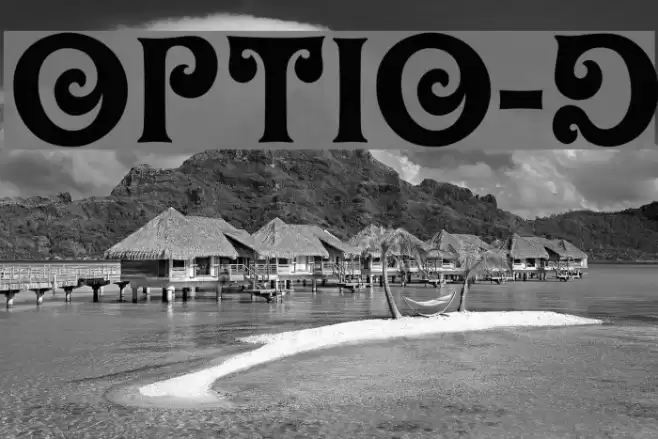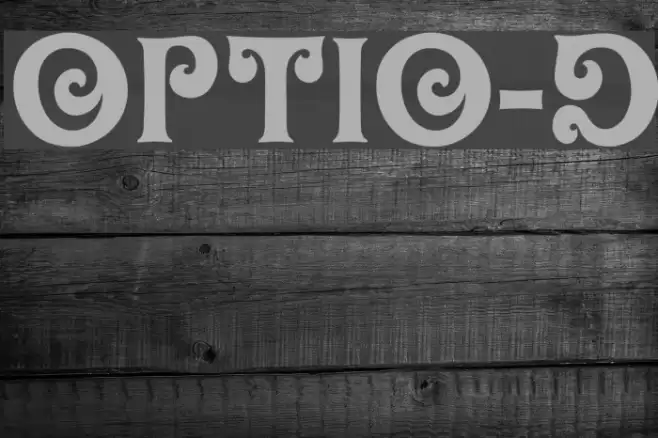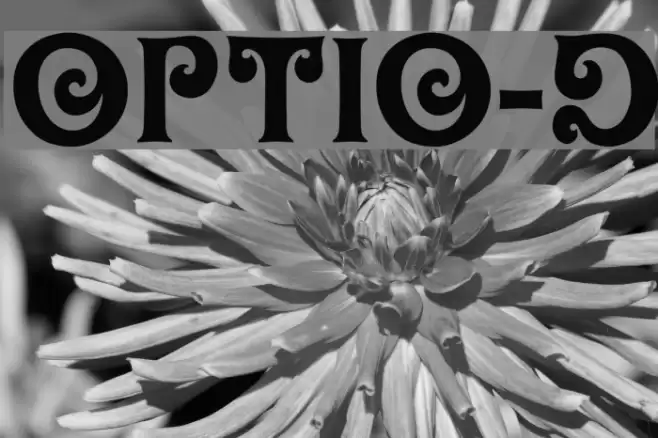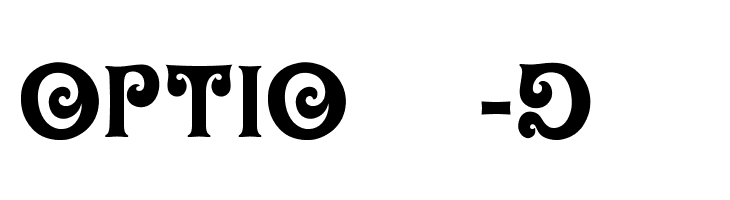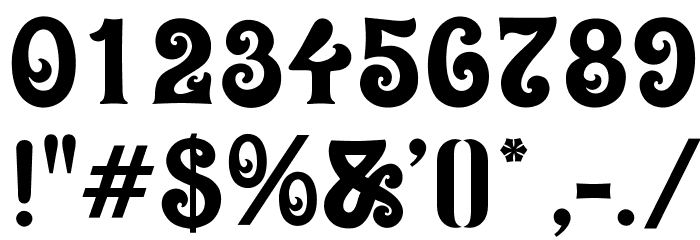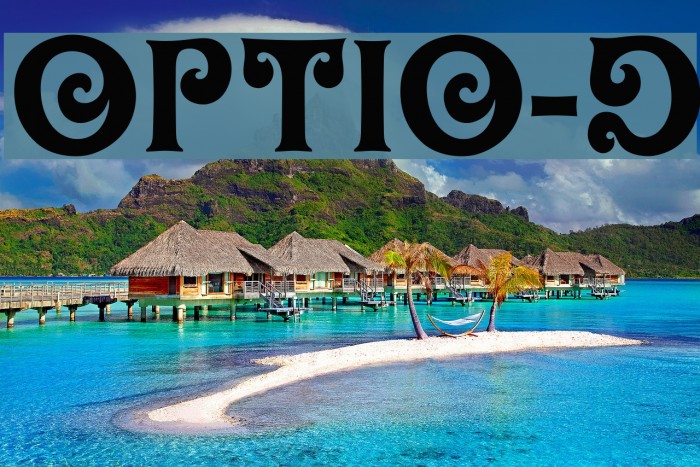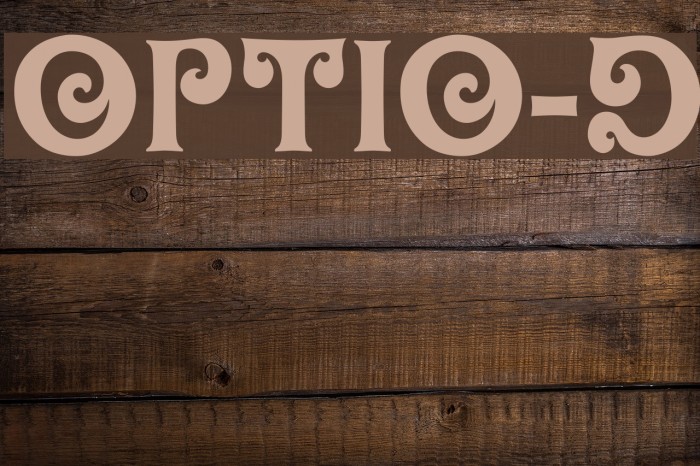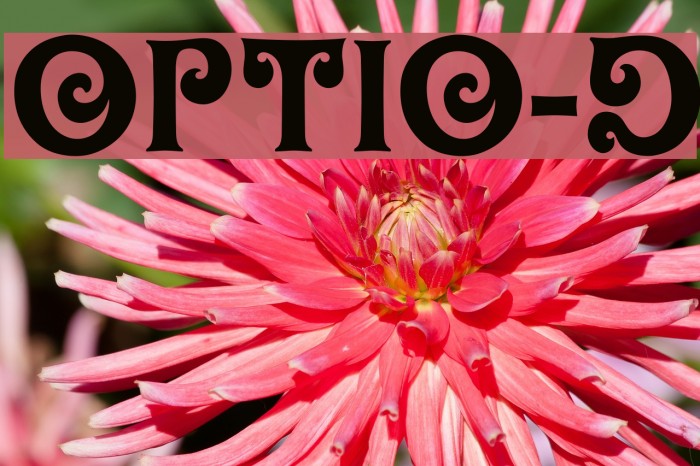
OPTIOliver-Display Font
OPTIOliver-Display Description
This font features a bold and decorative style with unique, swirling elements incorporated into each character. The uppercase letters are particularly ornate, with exaggerated curves and flourishes that give the font a whimsical and playful appearance. The numerals and special characters maintain this decorative theme, ensuring consistency across all glyphs. The font's boldness and intricate design make it stand out, ideal for projects that require a touch of elegance and creativity.
A bold, decorative font with swirling, ornate characters from Uncategorized fonts.